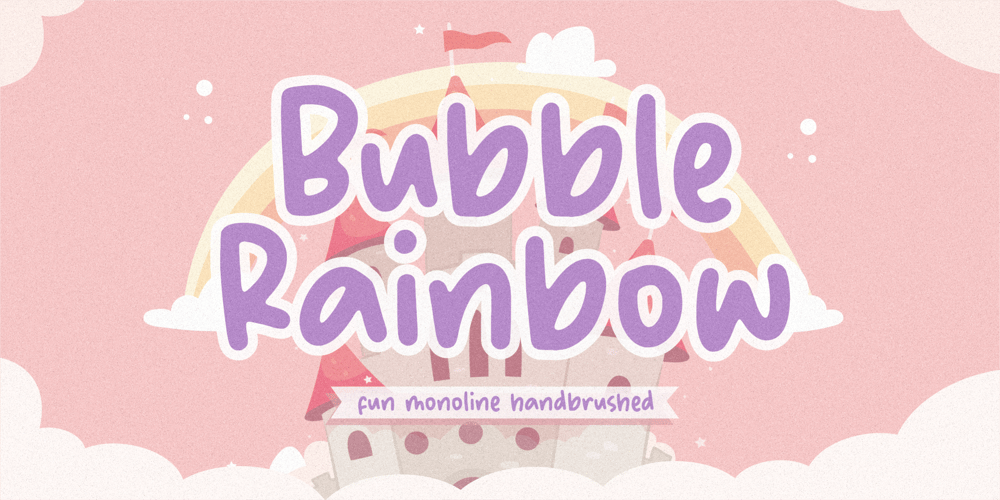
Bubble Rainbow Font Family was designed by Restu Angga and published by Balpirick. Bubble Rainbow contains 1 styles and family package options. Bubble Rainbow is a Fun Monoline Handbrushed font.Bubble Rainbow is a fun and whimsical paint brushed display font. This font is perfect for children themed designs, especially when combined with bright colors.This font includes TTF, Bubble Rainbow also has multilingual support.